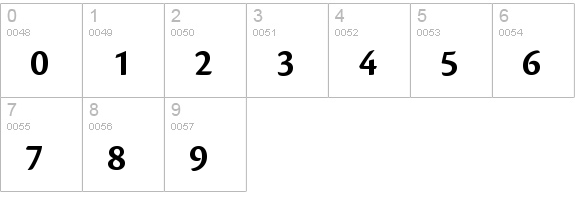
Cronos Pro Semibold Font Details
Cronos Pro Semibold is a sub-bold, structured variant in the Cronos typeface family \xE2\x80\x94 well suited to sub-headlines and emphasised passages.
Cronos Pro Semibold is a versatile and modern font that strikes the perfect balance between professionalism and style. With its bold yet refined appearance, this typeface is ideal for a wide range of design projects, from branding to editorial layouts. The clean lines and distinct letterforms of Cronos Pro Semibold make it easy to read while also adding a touch of sophistication to any design. The best part? Cronos Pro Semibold is available for free download at FontsMarket.com. Whether you're a graphic designer, web developer, or just someone looking to enhance their projects with a high-quality font, you can easily access this premium typeface without breaking the bank. Don't miss out on the opportunity to elevate your designs with Cronos Pro Semibold - download it today and see the difference it can make!